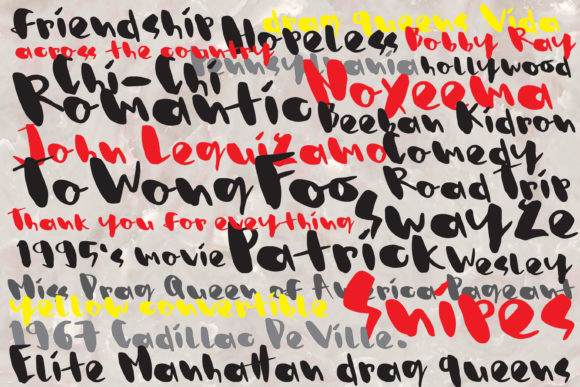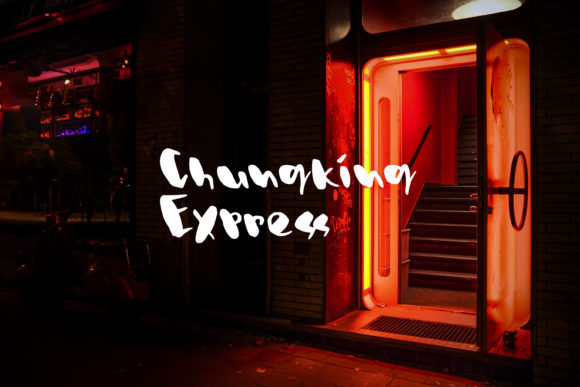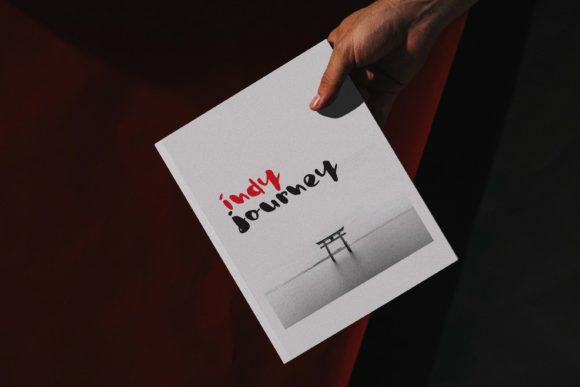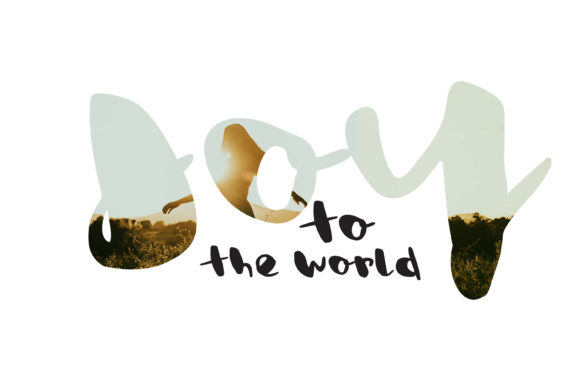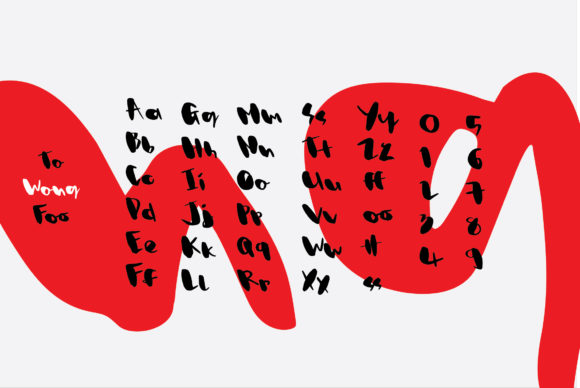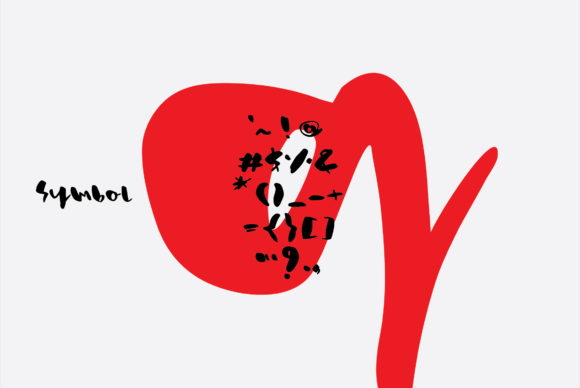
To Wong Foo Font
About To Wong Foo Font
To Wong Foo is a bold and quirky handwritten font that adds a touch of personality to your crafting projects. With its unique and playful style, this font is perfect for creating personalized designs that stand out.
Whether you’re working on DIY projects, handmade crafts, or any other creative endeavor, To Wong Foo brings a fun and distinctive element to your designs. Its bold and irregular letterforms exude a sense of energy and spontaneity, adding a touch of whimsy and charm to your creations.
The quirkiness of To Wong Foo allows you to create designs that are truly one-of-a-kind. Its hand-drawn appearance adds an authentic and personalized feel, making your crafts and projects feel special and unique. Whether you’re designing greeting cards, posters, scrapbooks, or any other crafting project, To Wong Foo will bring a sense of playfulness and creativity to your work.
The bold weight of the font ensures that your designs make a statement. Whether used for headlines, titles, or prominent text, To Wong Foo commands attention and grabs the viewer’s eye. Its irregular letterforms and exaggerated strokes add a sense of dynamism and visual interest to your designs.
To Wong Foo is a versatile font that can be used in various crafting projects. Its bold and quirky style works well with a wide range of themes, from children’s crafts and party decorations to handmade gifts and personalized stationery. Let your creativity run wild and experiment with different color palettes, textures, and layouts to bring out the best of this font.
In conclusion, To Wong Foo is a bold and quirky handwritten font that adds a personalized touch to your crafting projects. Its unique style and playful appearance make it an excellent choice for creating standout designs. Let To Wong Foo unleash your creativity and bring a sense of fun and originality to your crafting endeavors.